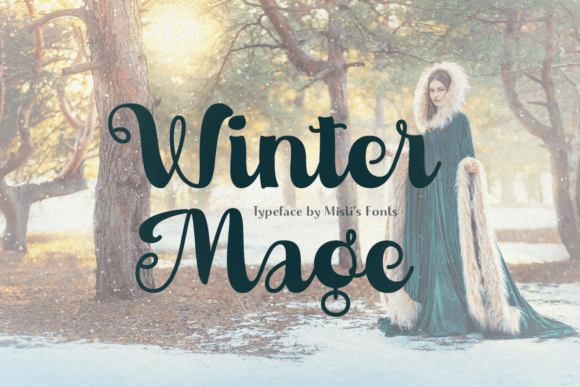
Slip into a whimsical world of words, where each letter dances with a graceful allure, courtesy of the Winter Mage Font. This calligraphy masterpiece, designed by the talented Misti, will bestow upon your designs an unparalleled elegance, transforming them into captivating works of art.
Let the Winter Mage Font whisk you away to an era of romance and charm, where your words take on a life of their own. Picture the joy of receiving a Valentine's Day card, handcrafted with the utmost care, its message penned in the flowing script of Winter Mage. Each stroke of the pen will carry your heartfelt sentiments, leaving a lasting impression that will warm the recipient's heart.
Envision the magic of an impending special event, its invitation adorned with the delicate artistry of Winter Mage. Your guests will be enthralled by the intricate details and whimsical charm, eagerly anticipating the festivities to come. The Winter Mage Font will set the tone for an unforgettable experience, leaving them mesmerized from the very first glimpse.
Whether you're a seasoned Etsy entrepreneur or simply seeking to add a touch of enchantment to your creative pursuits, the Winter Mage Font is the perfect companion for your journey. Its versatility knows no bounds, allowing you to craft eye-catching shop logos that exude professionalism and creativity. Its enchanting script will draw customers to your online store, enticing them with a glimpse of the unique and captivating items you have to offer.
Take your sublimation projects to breathtaking heights with the Winter Mage Font. Create personalized mugs, tote bags, and t-shirts that showcase the beauty of your designs and leave a lasting impression wherever they go. The Winter Mage Font will transform ordinary objects into cherished keepsakes, imbued with your personal touch and creativity.
With the Winter Mage Font, you possess the power to transform the mundane into the magical. Its elegance will elevate your designs, captivating your audience with its timeless beauty. It's more than just a font; it's an invitation to embark on a creative journey where words dance with grace and enchantment fills the air.